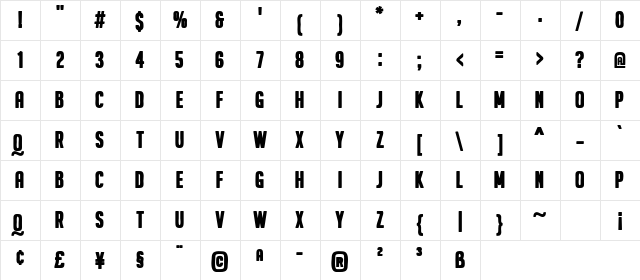
Fannabella Regular
| Designer | Wahysapt |
Design Context for Fannabella Typeface
Fannabella offers clean, dependable letterforms without strong stylistic allegiance, making it a practical choice for designers who need flexibility.